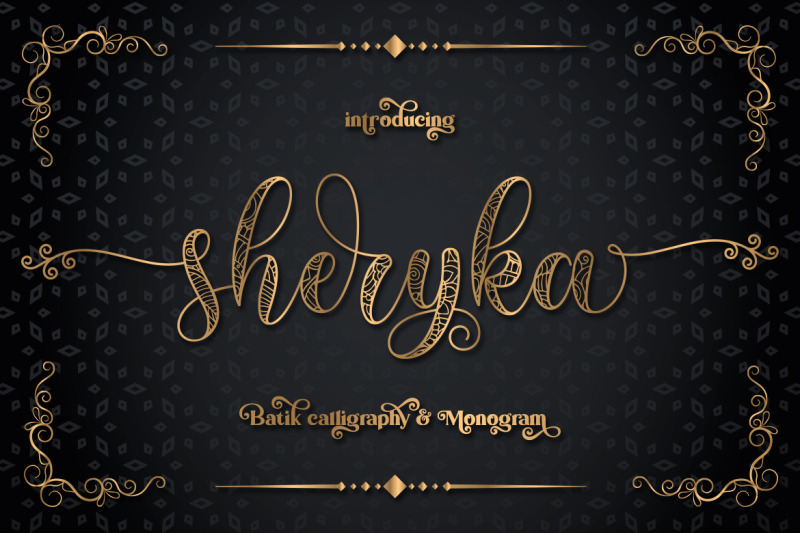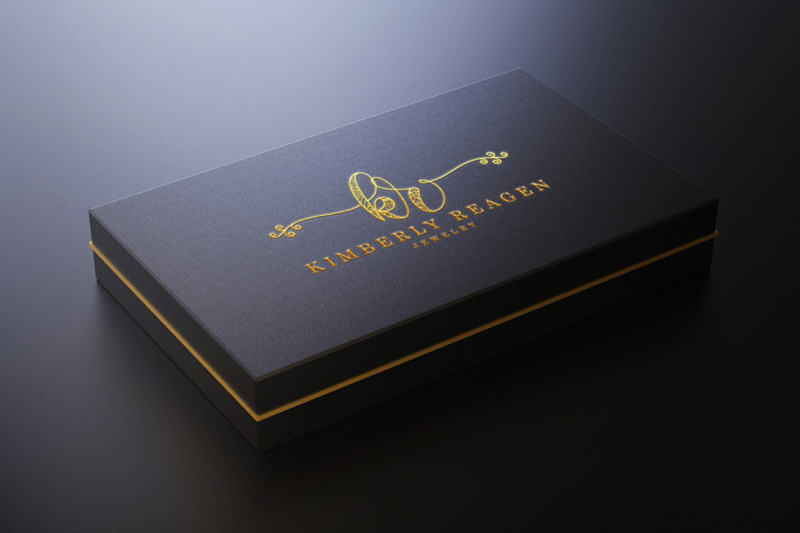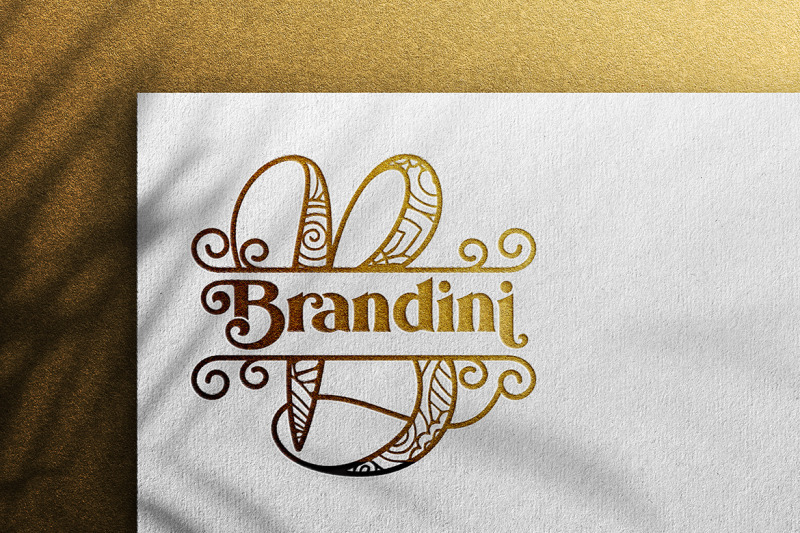
Freebie Wednesday: Sherika Batik Calligraphy Font
FREE Sherika Batik Calligraphy Font!
Sherika is a beautiful calligraphy font  inspired by Indonesian Batik Cloth! Equipped with monogram and split monogram, this font is suitable for all your elegant designs! Font comes in OTF, TTF, & WOFF formats!